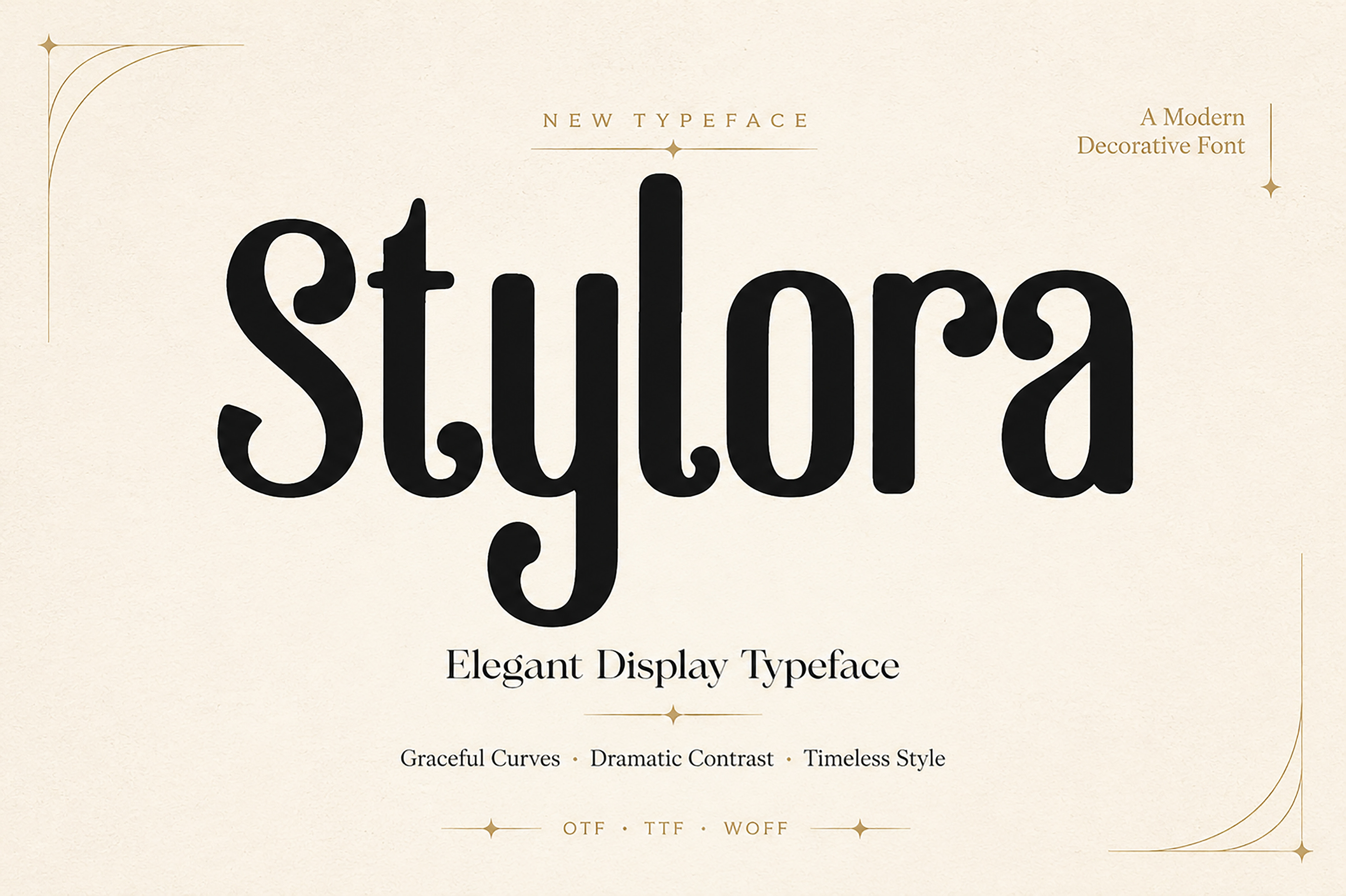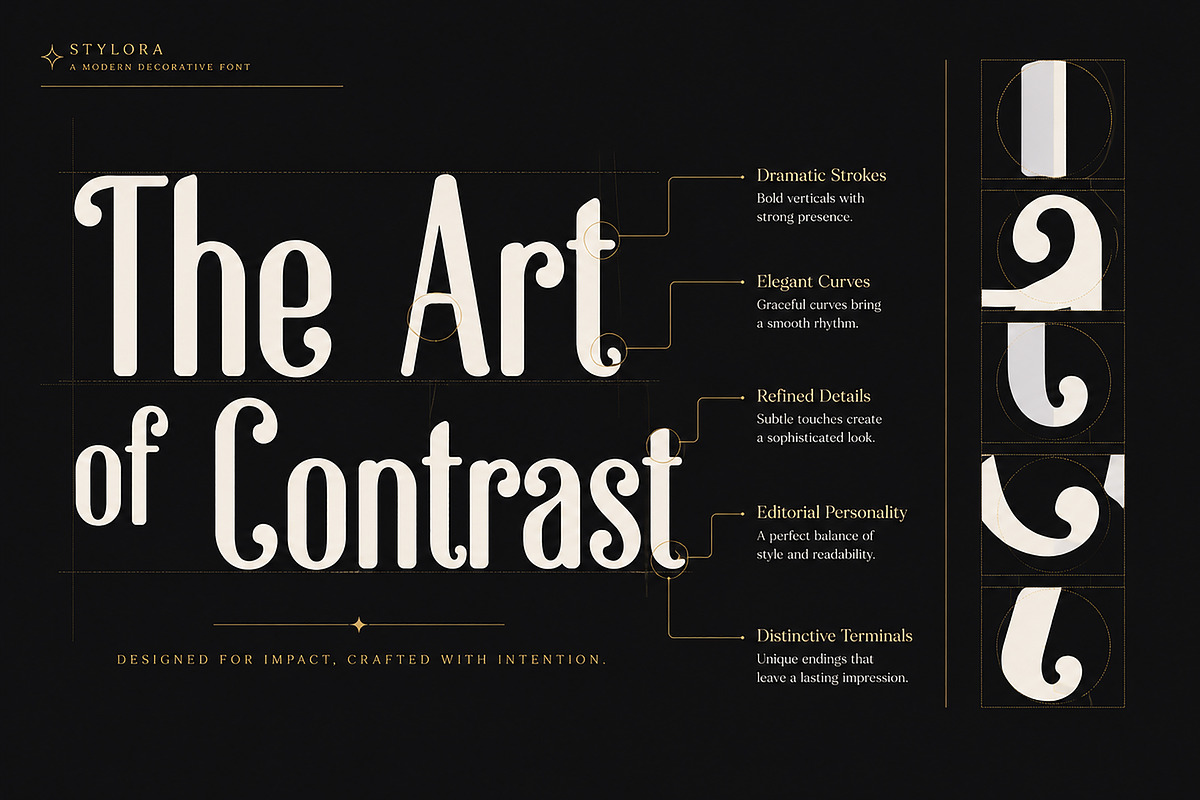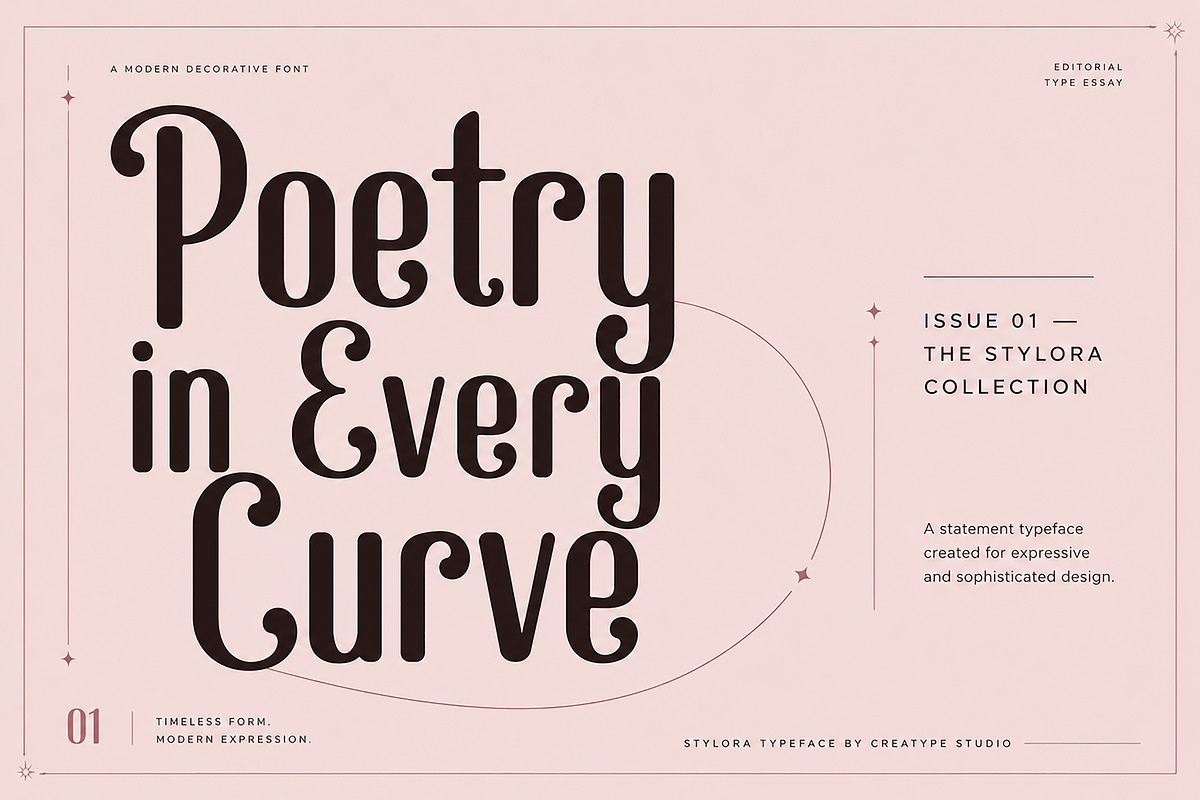
Stylora – Elegant Display Typeface
Stylora is a sophisticated display typeface crafted to bring elegance, personality, and timeless charm to your creative projects. Featuring graceful curves, dramatic high-contrast strokes, and distinctive decorative terminals, Stylora delivers a luxurious editorial feel while maintaining excellent readability at large sizes.
Designed for designers, branding specialists, and creative entrepreneurs, Stylora is perfect for creating memorable visual identities, premium packaging, fashion campaigns, wedding stationery, social media graphics, magazine headlines, and high-end logo designs.
Its refined letterforms blend modern aesthetics with classic inspiration, making it a versatile choice for projects that demand beauty, confidence, and sophistication.
Whether you're designing for print or digital, Stylora helps your typography stand out with style and character.
Luxury Branding
Editorial Headlines
Magazine Covers
Beauty & Fashion Brands
Wedding Invitations
Cosmetic Branding
Social Media Templates
Posters
Quotes
Restaurant Branding
Boutique Identity
Premium Marketing Materials
Elegant Display Typeface
Modern Decorative Style
High Contrast Letterforms
Smooth & Graceful Curves
Distinctive Decorative Terminals
Recommended Use
Stylora performs best at medium to large sizes where its elegant details and decorative curves can truly shine. Ideal for headlines, logos, branding, and display typography rather than long paragraphs.